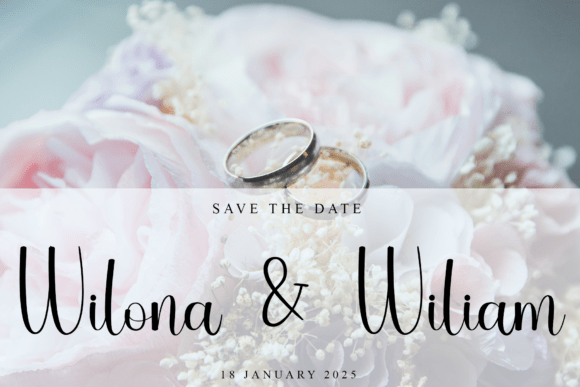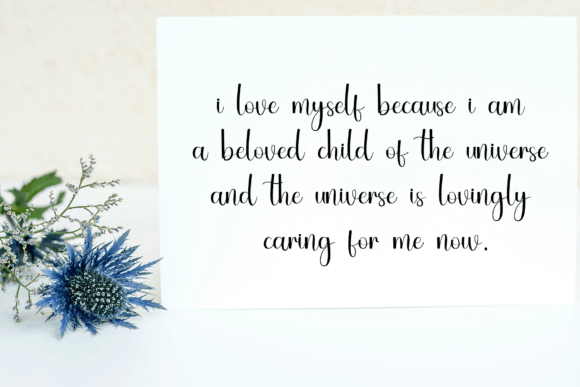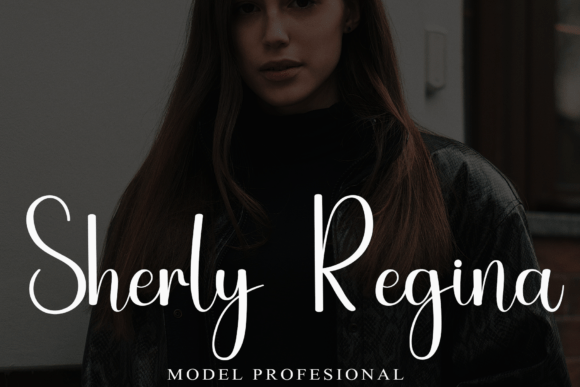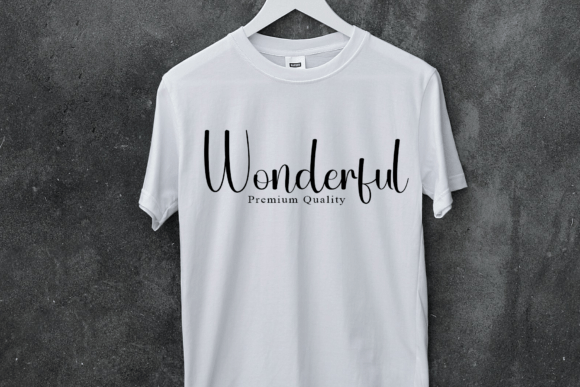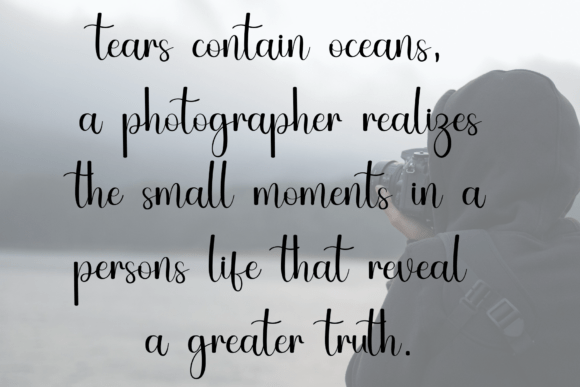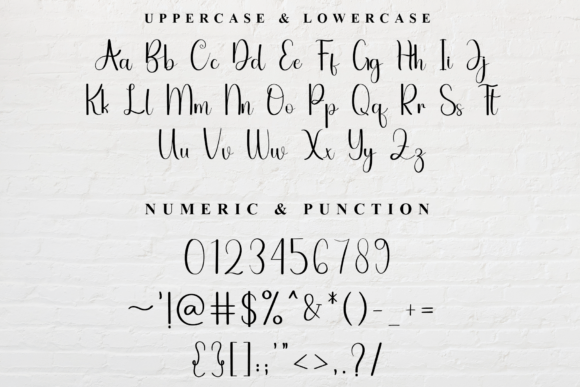
Introducing Coquette Font: The Ultimate Choice for Creative Designs
Are you a designer, crafter, or DIY enthusiast looking for a font that can add a personal touch to your projects? Look no further than Coquette Font, a casual and creative typeface that exudes warmth and friendliness. In this article, we’ll explore the features and benefits of Coquette Font, and why it’s the perfect choice for your next design project.
The Charm of Coquette Font
Coquette Font is a hand-drawn font that boasts round, playful strokes, creating a relaxed and approachable feel. Its charming aesthetic is perfect for personal projects, invitations, social media graphics, and any design that requires a friendly and informal tone. The font’s unique character is sure to capture the attention of your audience and leave a lasting impression.
Key Features of Coquette Font
- Casual and Creative: Coquette Font is designed to add a personal touch to your designs. Its playful strokes and rounded edges create a friendly and approachable feel.
- Hand-Drawn Aesthetic: Coquette Font’s hand-drawn aesthetic adds a fun and unique touch to any design, making it perfect for crafters, designers, and DIY enthusiasts.
- Multilingual Support: Coquette Font supports multiple languages, making it a versatile choice for designers working on international projects.
Coquette Font is an excellent choice for a wide range of design projects, including:
- Personal Projects: Add a personal touch to your journals, planners, and scrapbooking projects with Coquette Font.
- Invitations: Create beautiful and unique invitations for parties, weddings, and other special occasions.
- Social Media Graphics: Use Coquette Font to create engaging social media graphics, such as quotes, posters, and flyers.
- Branding: Coquette Font can be used for branding projects, such as logos, business cards, and letterheads.
Why Choose Coquette Font?
With so many fonts available, why choose Coquette Font? Here are a few reasons:
- Unique Aesthetic: Coquette Font’s hand-drawn aesthetic sets it apart from other fonts, making it a great choice for designers looking for a unique look.
- Easy to Read: Coquette Font is designed to be easy to read, making it perfect for body text and headings.
- Versatile: Coquette Font can be used for a wide range of design projects, from personal projects to commercial branding.
Tips for Using Coquette Font
Here are a few tips for using Coquette Font in your designs:
- Pair with Other Fonts: Coquette Font pairs well with other fonts, such as sans-serif fonts, to create a unique and interesting look.
- Experiment with Colors: Coquette Font looks great in a variety of colors, so don’t be afraid to experiment and find the perfect color scheme for your design.
- Use for Headings and Titles: Coquette Font is perfect for headings and titles, adding a touch of personality to your design.
Coquette Font is a charming and creative font that’s perfect for designers, crafters, and DIY enthusiasts looking to add a personal touch to their projects. With its hand-drawn aesthetic, PUA Encoded glyphs, and multilingual support, Coquette Font is a versatile choice for a wide range of design projects. Whether you’re working on a personal project, invitation, or social media graphic, Coquette Font is sure to bring a touch of warmth and friendliness to your design.